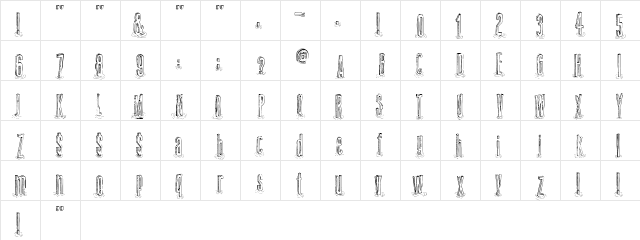
Amazon Palafita Regular
| Designer | Galdino Otten |
Design Context for Amazon Palafita Typeface
Amazon Palafita is a composed and adaptable typeface that performs quietly and consistently across a wide range of design contexts.